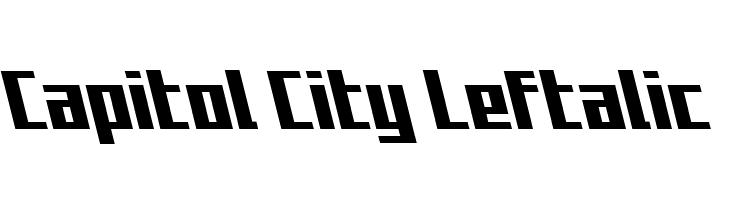
A fluid and elegant cursive font with a modern calligraphic style.
A playful handwritten font with tall, narrow characters and consistent stroke width.
A bold, angular font with a leftward slant, exuding energy and modernity.
An expressive, calligraphic font with dynamic strokes and artistic flair.
A bold, rough, and tilted font with a dynamic and edgy style.
A cursive, handwritten font with elegant, flowing strokes.
A bold, expressive script font with dynamic, calligraphic strokes.
A playful, casual handwritten font with smooth, flowing curves.
A bold, geometric font with a striped, futuristic design.
An elegant and flowing script font with intricate loops and swashes.
设计师偏爱 Chill Friend Demo, Inzania, Capitol City Leftalic, Alex Bentteke and Humingson Rough Tilted,因为其造型干净、适用范围广—— 从品牌识别到落地页、海报都能胜任。